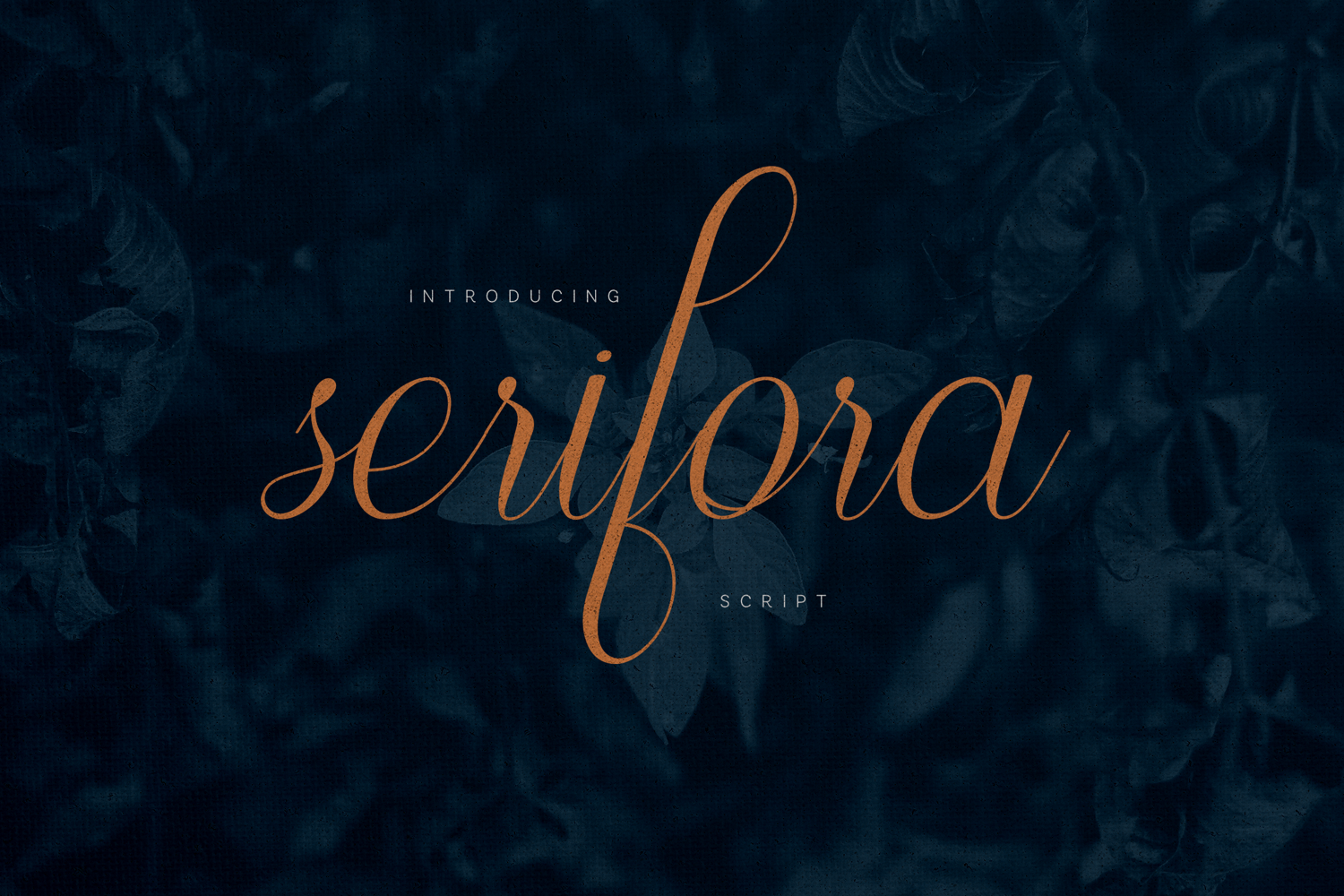
Serifora Elegant Signature Script Font
Serifora is a refined signature-style script typeface that blends flowing calligraphy strokes with modern handwritten elegance. The design focuses on graceful curves, balanced rhythm, and expressive letterforms that move naturally across words and sentences.
The typeface features smooth connections, elongated strokes, and elegant loops, creating a sophisticated handwritten aesthetic that feels fluid and organic. Each character was carefully shaped to preserve the natural movement of handwriting while maintaining consistency and readability.
Serifora’s flowing structure allows typography to feel light, expressive, and visually dynamic, making it especially suitable for projects that benefit from a graceful handwritten style.
The delicate contrast between thin and slightly stronger strokes gives the typeface a refined personality that sits between modern calligraphy and elegant signature lettering.
Serifora works beautifully in designs such as:
• elegant branding projects
• invitation typography
• packaging design
• beauty and lifestyle branding
• typography-driven layouts
• social media visuals
• logo concepts
• editorial compositions
The script flows naturally across words, allowing designers to create typography that feels sophisticated, and visually expressive without losing clarity.
Serifora includes uppercase letters, lowercase letters, numbers, punctuation, symbols, and extended multilingual language support, allowing it to be used across many international design projects.
With its smooth handwritten motion and elegant calligraphic details, Serifora offers a refined script typeface designed to bring graceful typography and flowing character into modern design compositions.